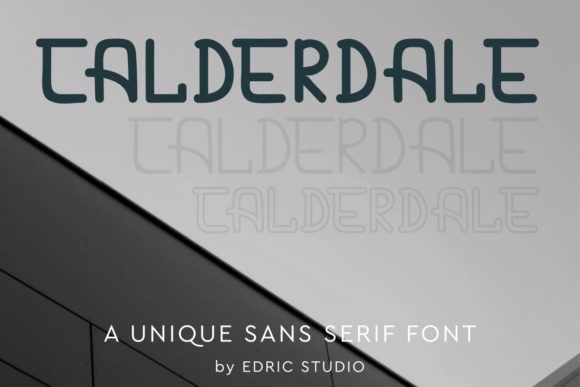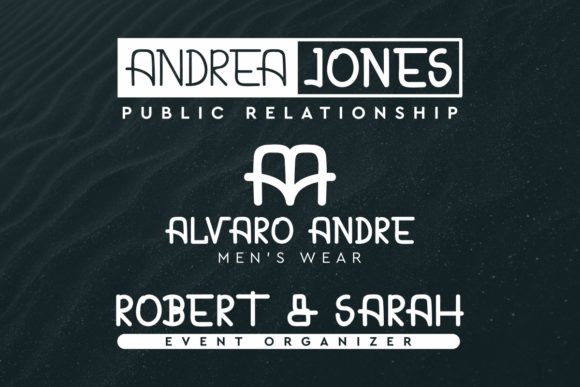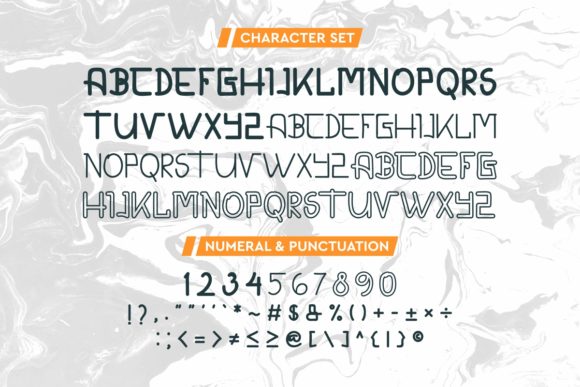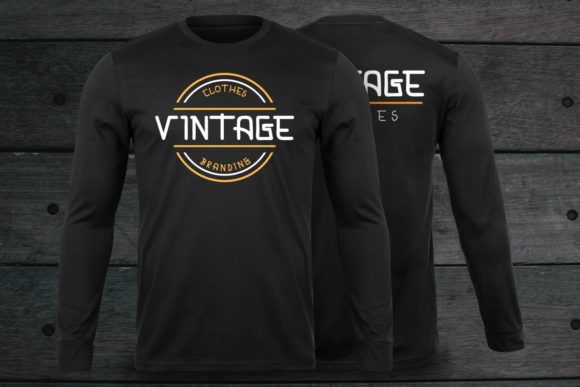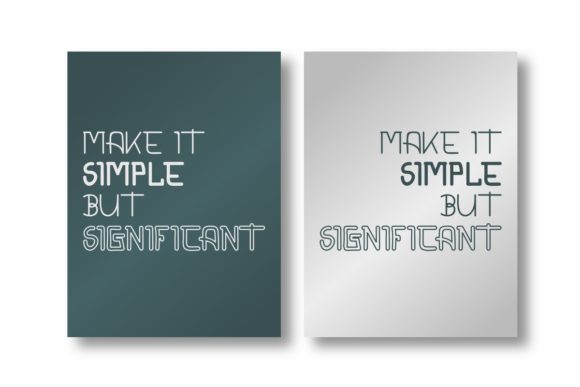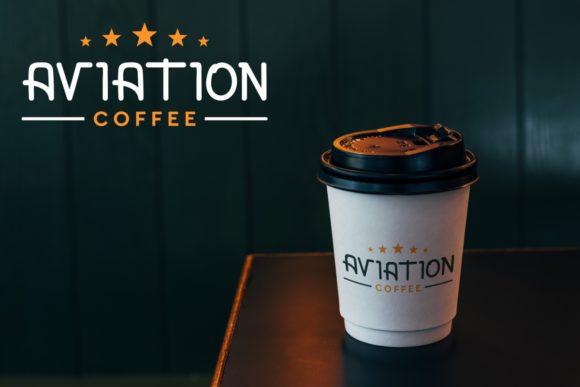
Introducing Calderdale Font: Elevate Your Designs with Modern Style
In the world of typography, a font can make or break a design. For designers and crafters looking for a unique and stylish sans serif display family font, look no further than Calderdale Font. This modern and versatile font is perfect for a wide variety of projects, from branding and advertising to packaging and digital media.
What is Calderdale Font?
Calderdale Font is a distinctive sans serif display family font that boasts modern and stylish glyphs. Its clean lines, elegant curves, and precise craftsmanship make it an exceptional choice for designers seeking a font that can add a touch of sophistication to their work. With its unique character set, Calderdale Font is sure to make your designs stand out from the crowd.
Key Features of Calderdale Font
- Modern and stylish glyphs: Calderdale Font features a carefully crafted set of glyphs that exude modernity and style. Each character is designed to perfection, ensuring that your text looks crisp, clean, and visually appealing.
- Sans serif design: The font’s sans serif design makes it perfect for use in digital media, such as websites, social media, and mobile apps, as well as in print materials like brochures, posters, and business cards.
- Display font: Calderdale Font is specifically designed as a display font, making it ideal for headlines, titles, and short text passages. Its bold and eye-catching design ensures that your message will grab attention.
- Versatile and flexible: With its wide range of applications, Calderdale Font is an excellent choice for various projects, from branding and advertising to packaging and digital media.
Why Choose Calderdale Font?
With so many fonts available, why choose Calderdale Font? Here are just a few reasons:
- Unique and distinctive: Calderdale Font’s modern and stylish glyphs set it apart from more traditional fonts, ensuring that your designs will stand out.
- Easy to read: Despite its bold design, Calderdale Font is easy to read, even at smaller sizes, making it perfect for use in a variety of applications.
- Time-saving: With Calderdale Font, you can achieve professional-looking results quickly and easily, saving you time and effort.
How to Use Calderdale Font
Calderdale Font is perfect for a wide range of projects, including:
- Branding and advertising: Use Calderdale Font to create eye-catching logos, billboards, and print ads that grab attention.
- Digital media: Add a touch of modern style to your website, social media, or mobile app with Calderdale Font.
- Packaging: Make your product packaging stand out with Calderdale Font’s bold and stylish design.
- Print materials: Use Calderdale Font in brochures, posters, business cards, and other print materials to add a touch of sophistication.
In conclusion, Calderdale Font is a unique and versatile sans serif display family font that is perfect for designers and crafters looking to add a touch of modern style to their work. With its modern and stylish glyphs, clean lines, and precise craftsmanship, Calderdale Font is sure to elevate your designs and make them stand out from the crowd. Whether you’re working on branding and advertising, digital media, packaging, or print materials, Calderdale Font is an excellent choice.